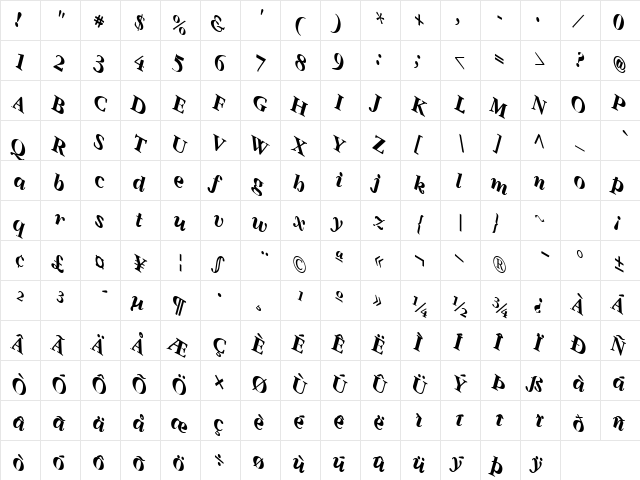
Complete NorthernExposure46 Regular glyph index. Displaying only characters natively supported by NorthernExposure46 Regular font.
NorthernExposure46 is a composed and adaptable typeface that performs quietly and consistently across a wide range of design contexts.